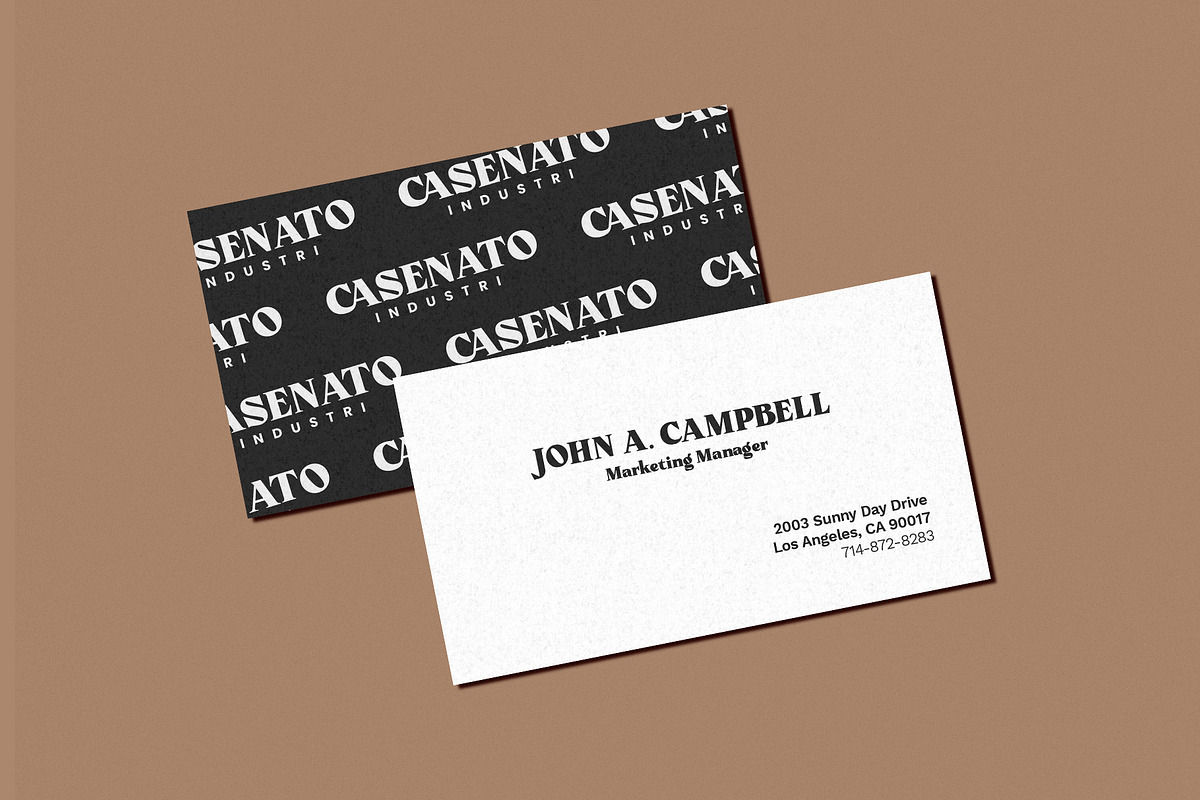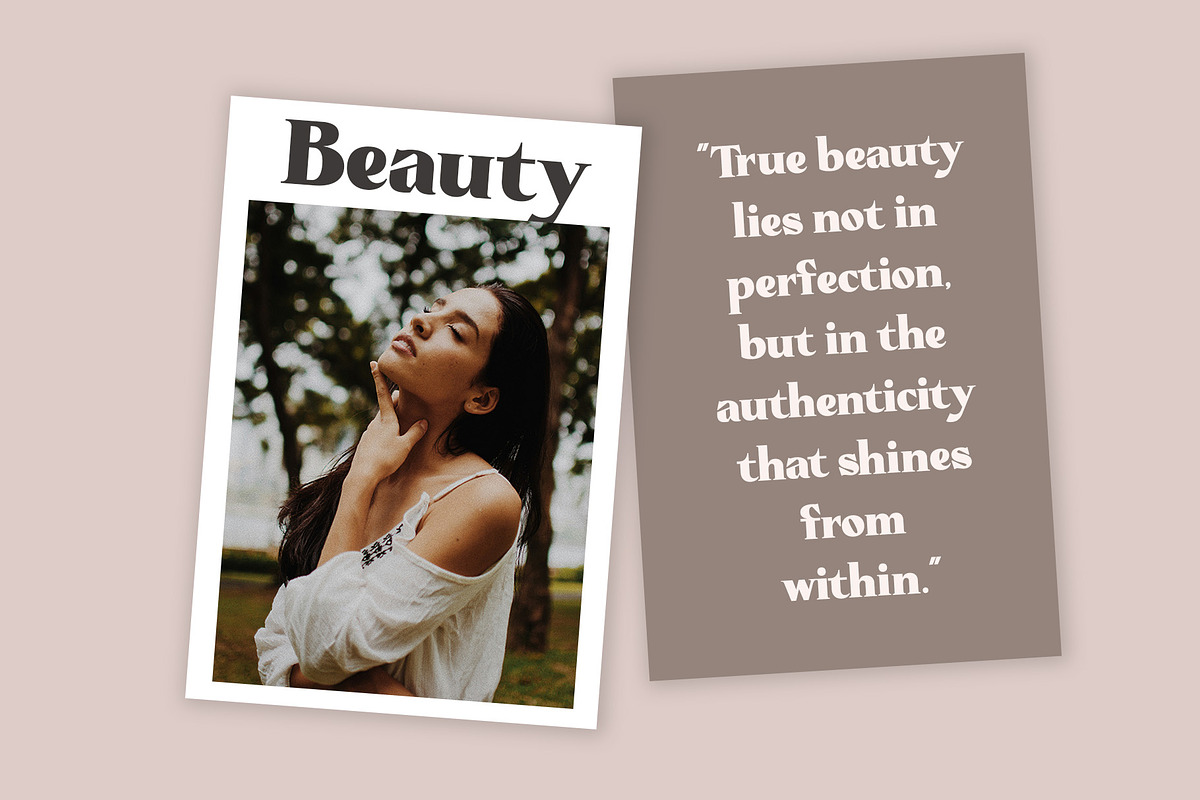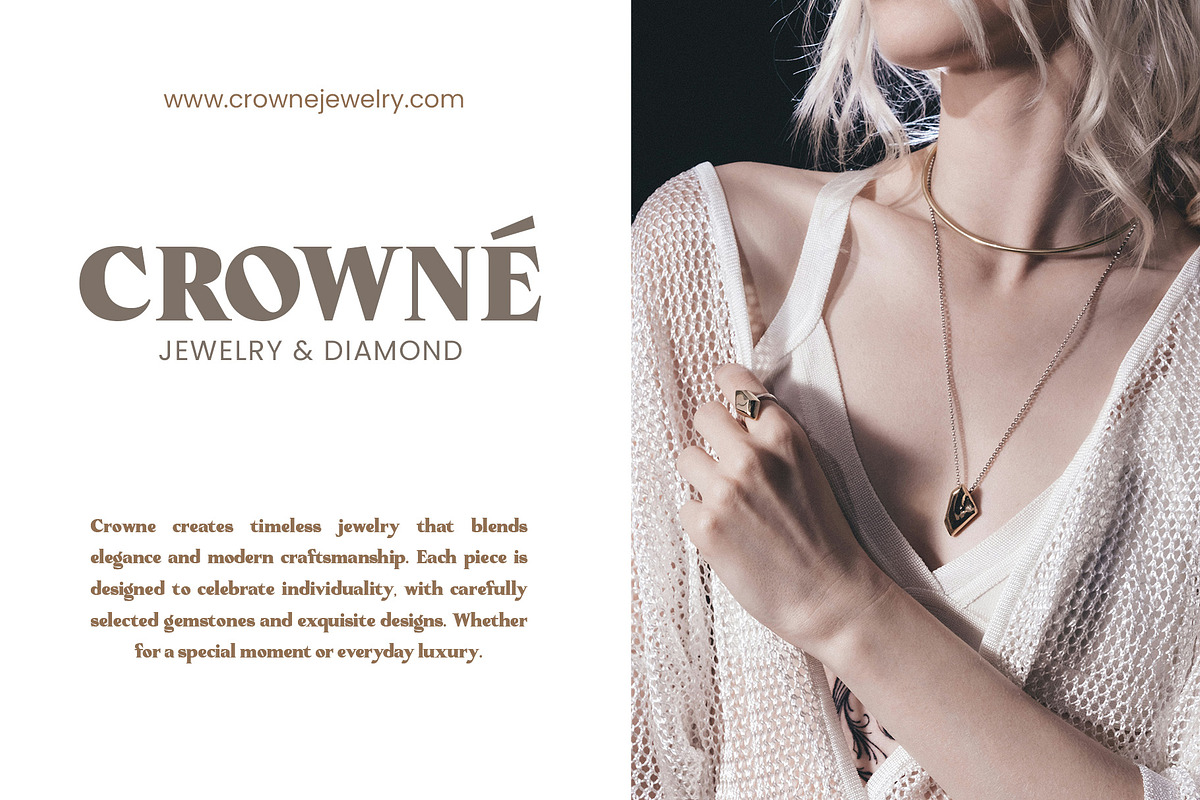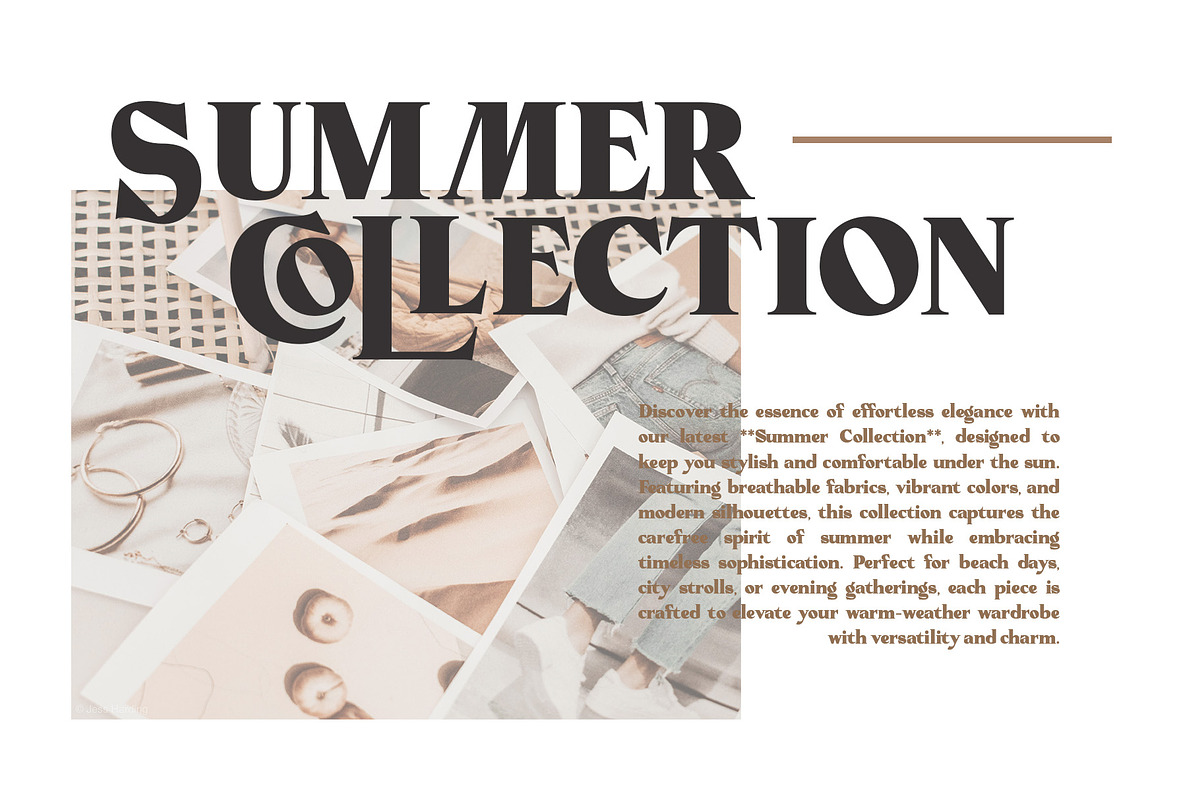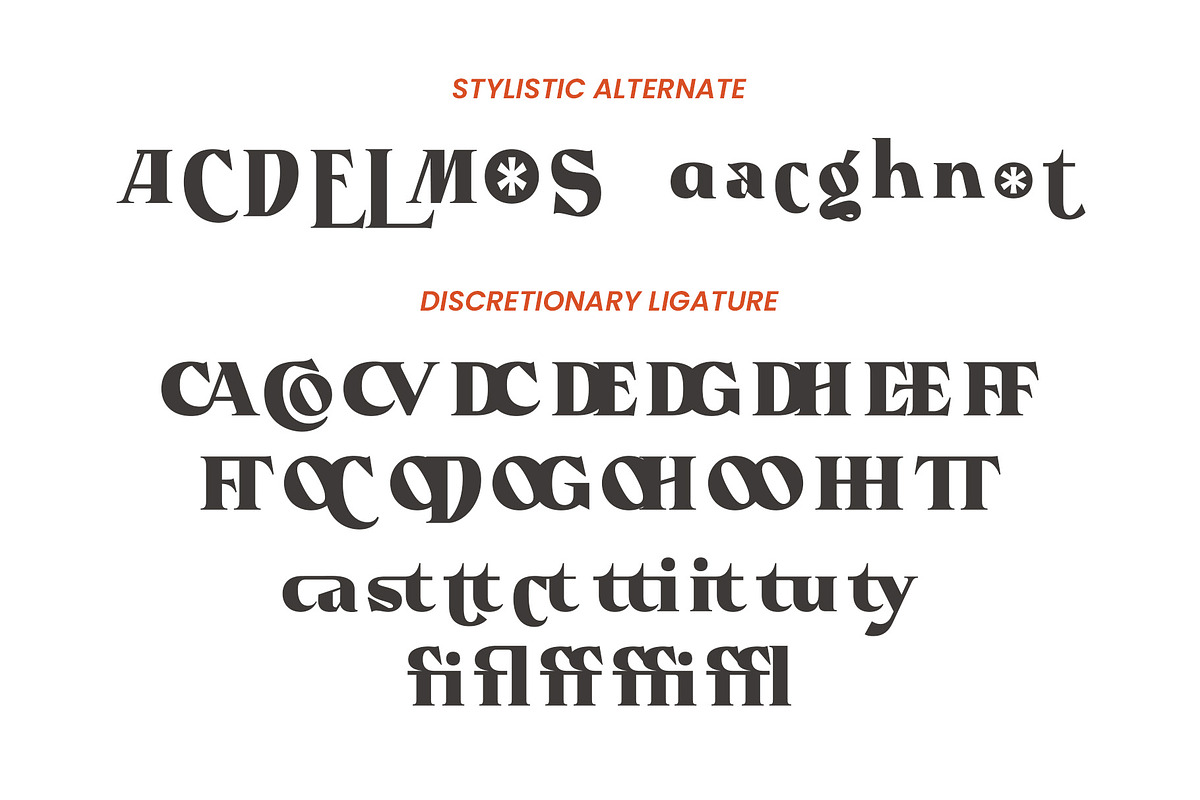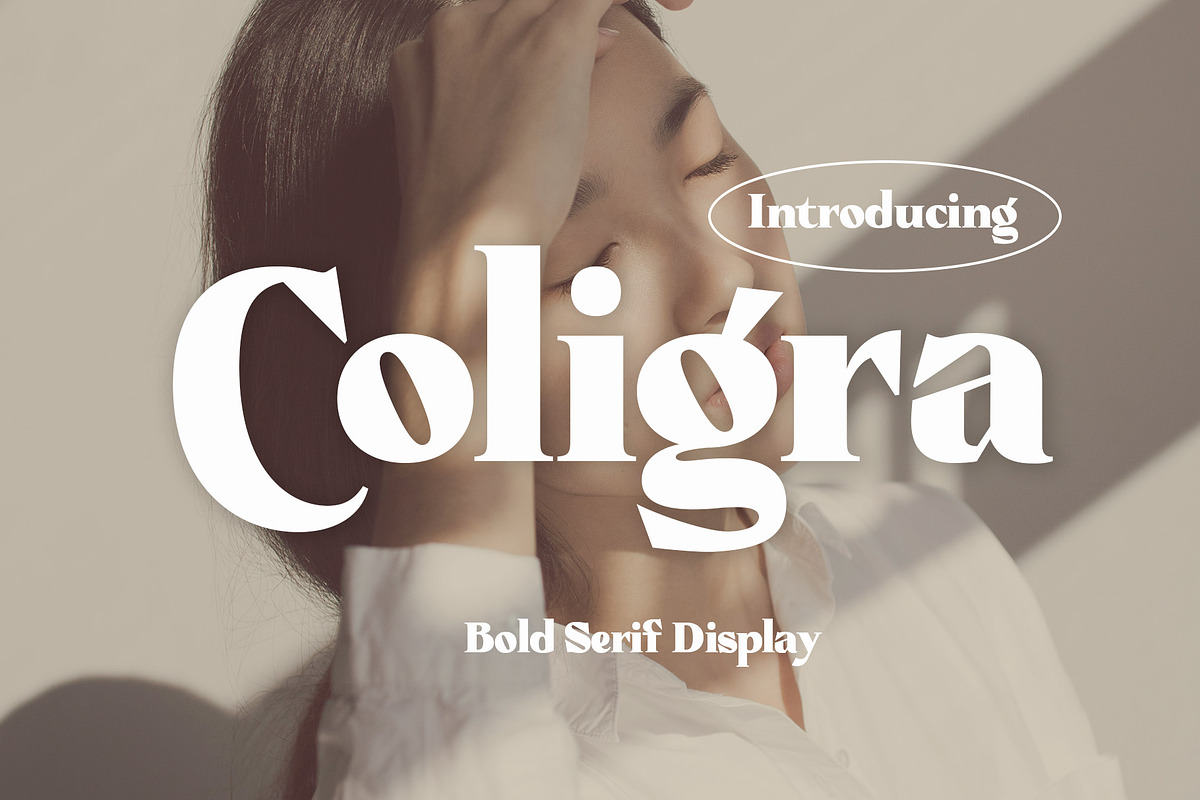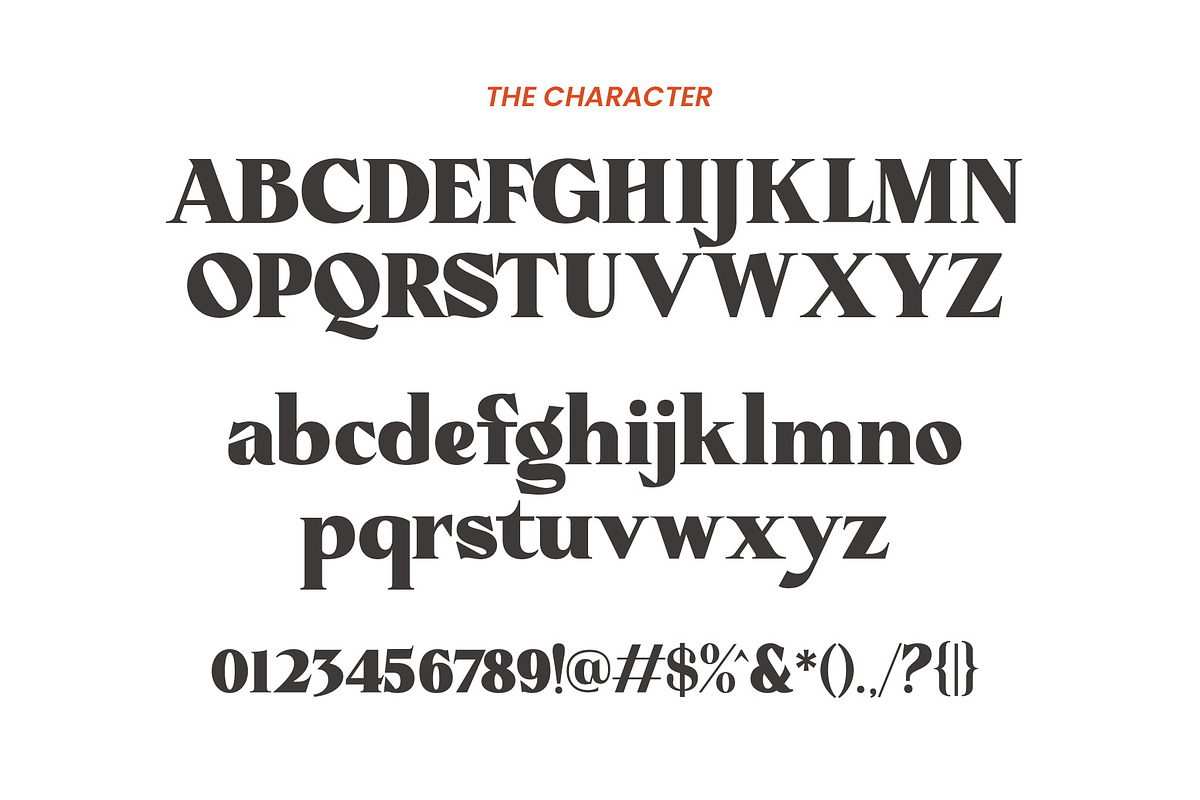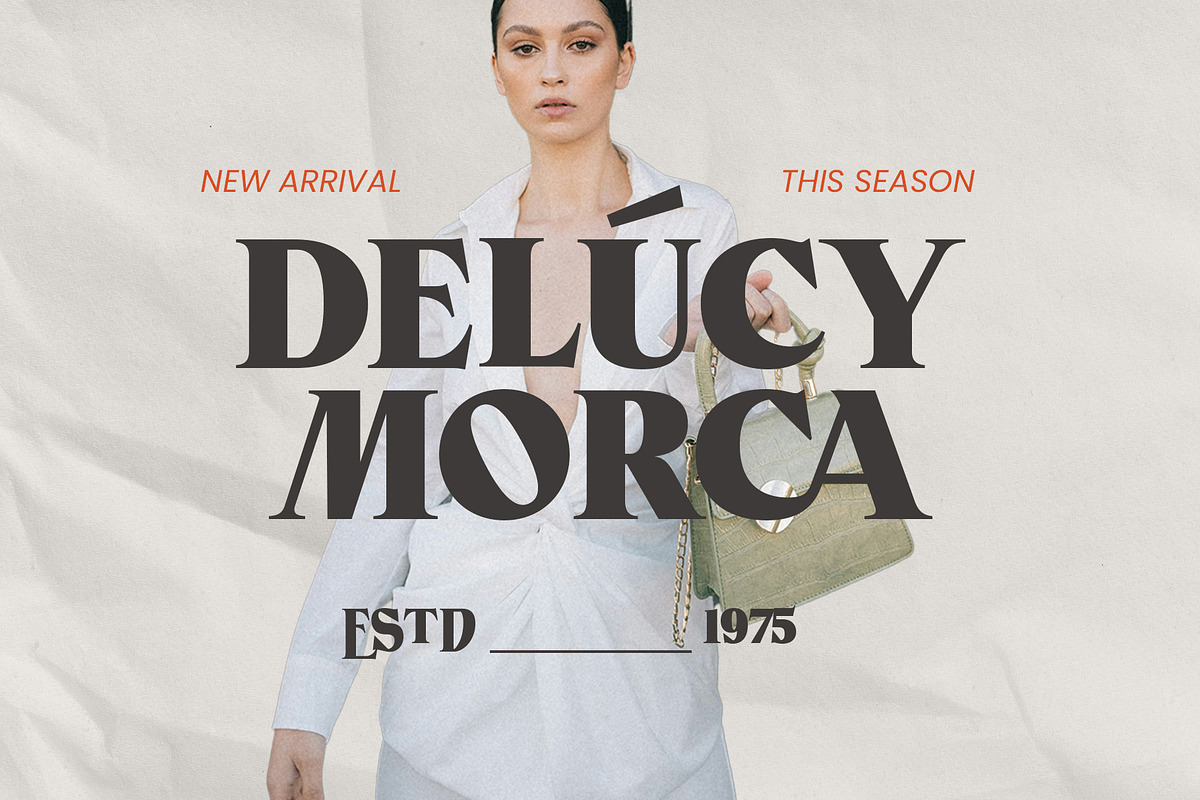
Coligra
The Coligra is stylish with extreme cuts, sharp angles and interactive straps. Characters that seem solid are spread across each replacement letter, with different styles and maximum personality. The separation of bold character and standards that are considered binding creates a type that is solid, modern and attractive. Suitable for logos, emblems, magazines, quotes etc.
Coligra is a modern Display font, each letter is carefully crafted to make your text look unique. Feel free to message me if you have any questions!